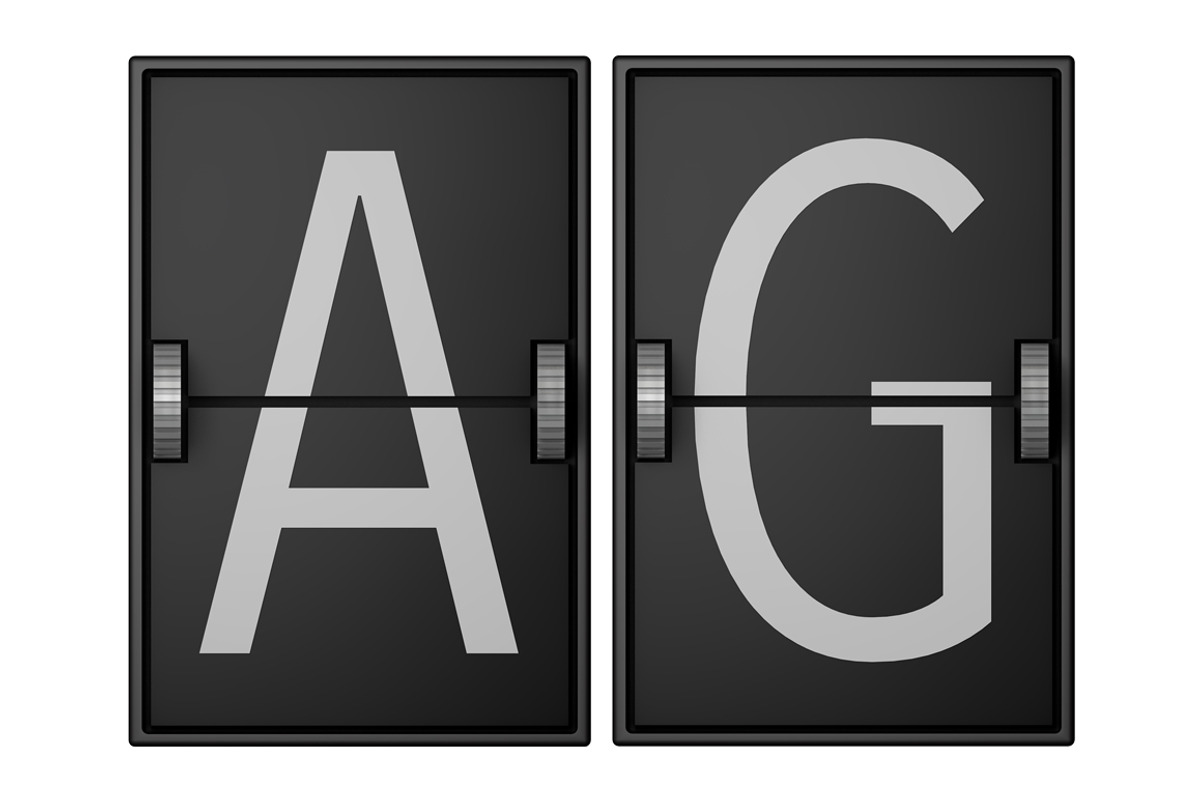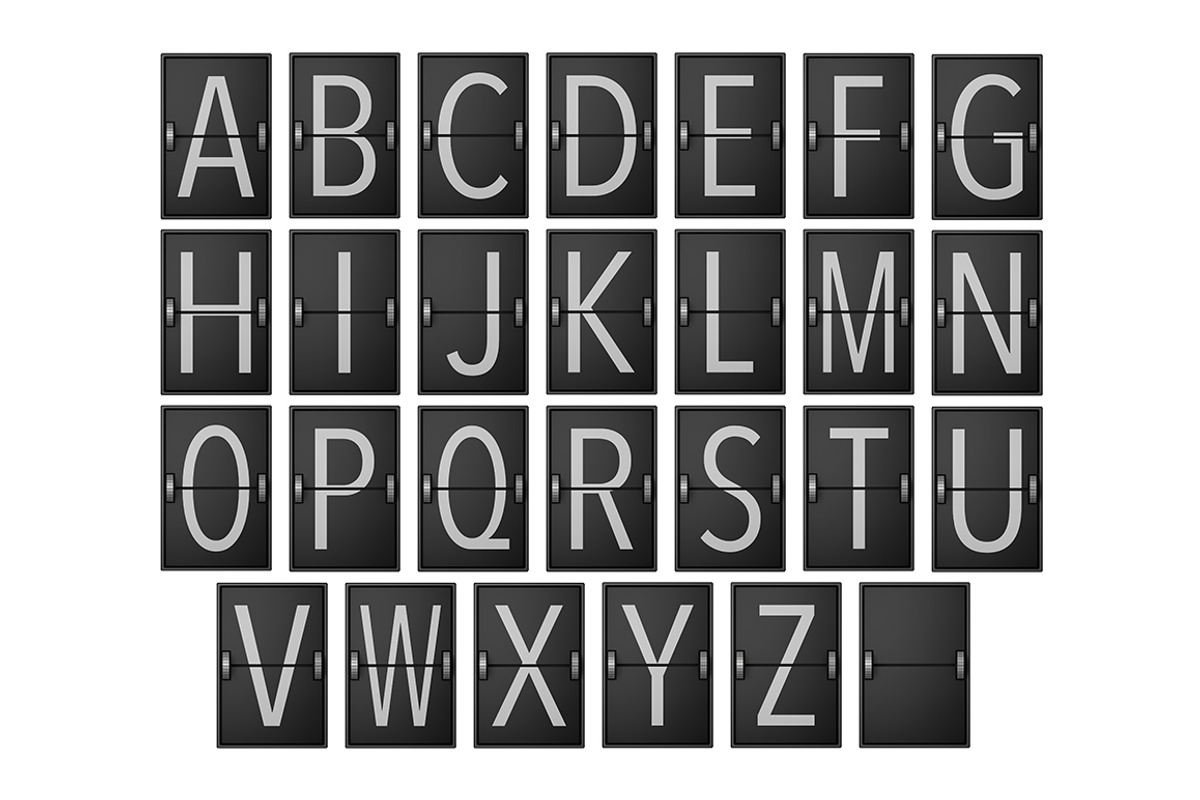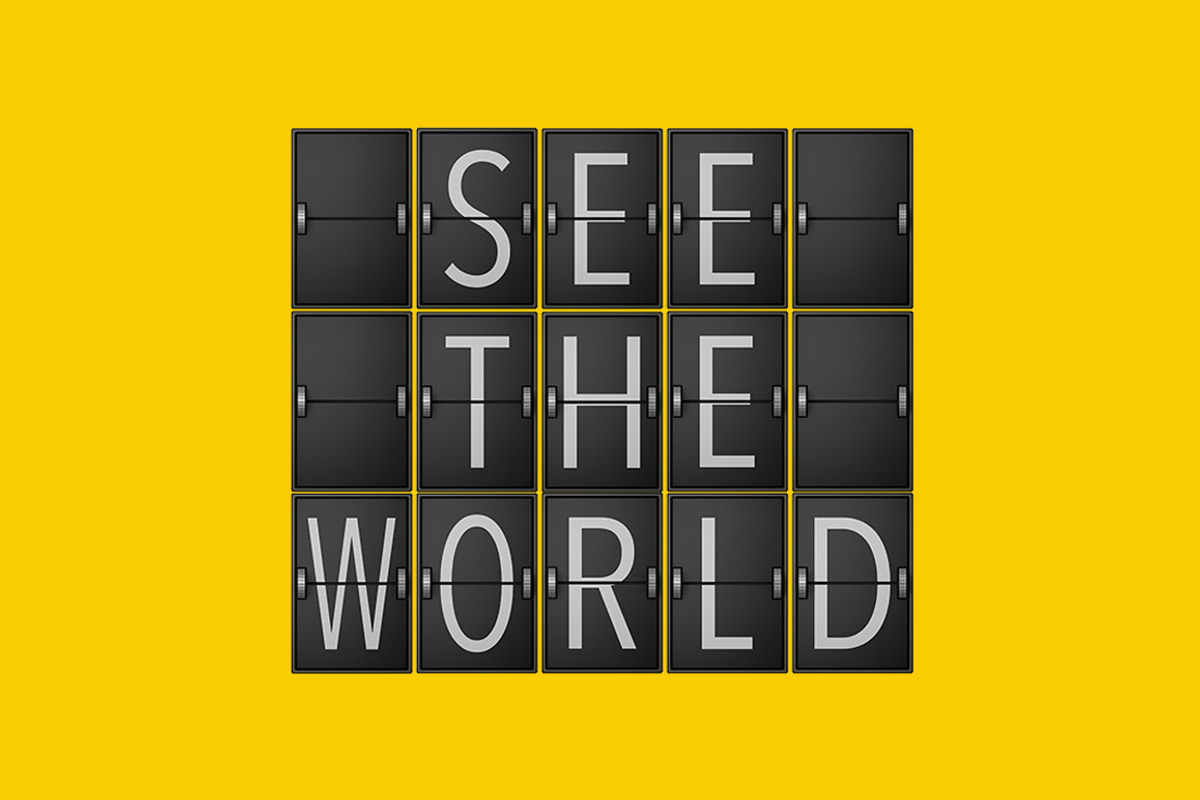
Arrival - Typeface
Arrival - Typeface by ink drop is a font selected for branding, posters, packaging, typography.
- The font includes a blank tile as the fullstop which can be used as an alternative space.
Arrival - Typeface by ink drop fits naturally into Branding, posters, packaging, typography.